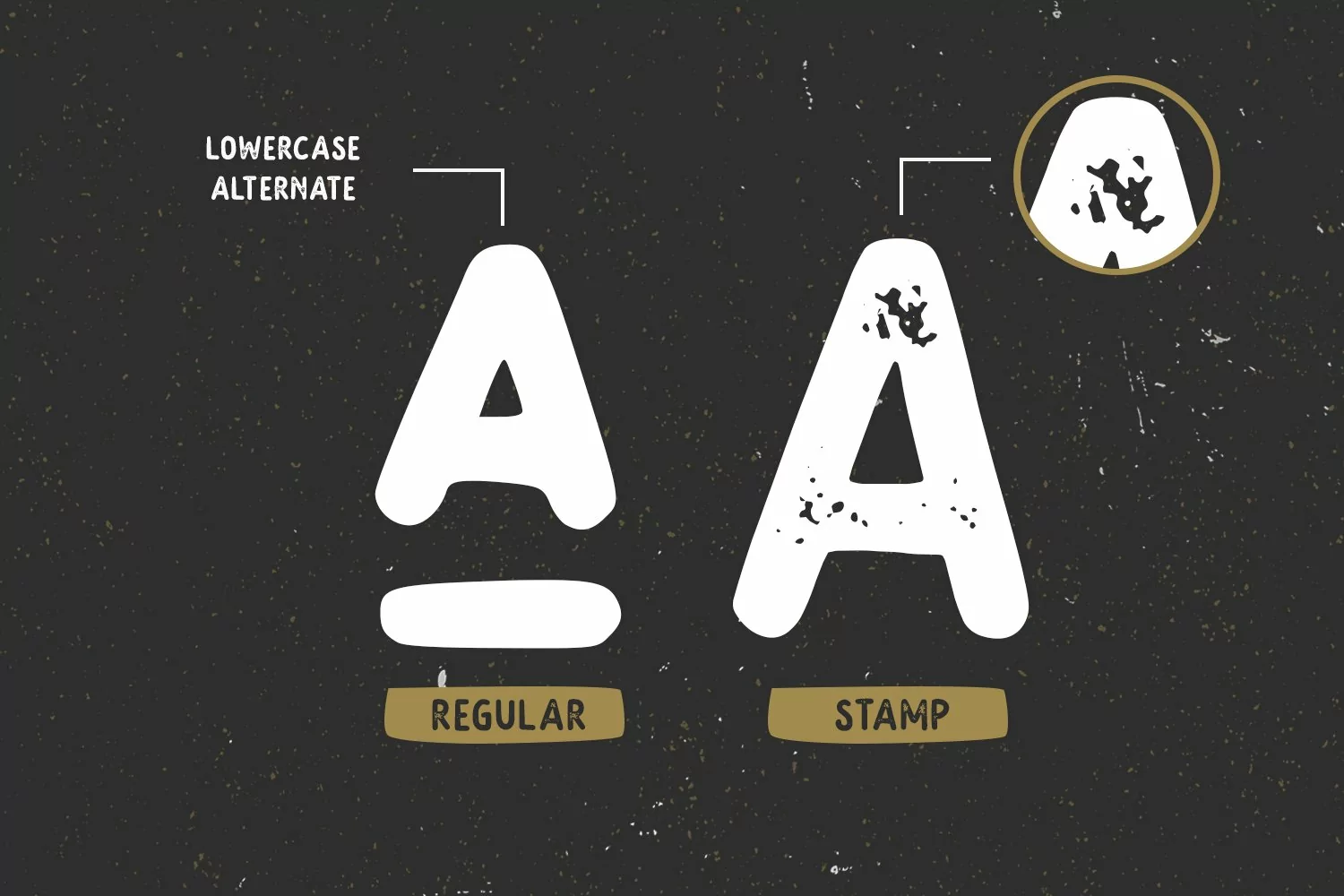
Barqon | Display Monoline Font
Barqon is a vintage display family including Regular and Stamp versions. it's perfect for logos, name card, magazine layouts, invitations, headers, or even large-scale artwork. Barqon includes 2 OTF & TTF files within the Zip folder.